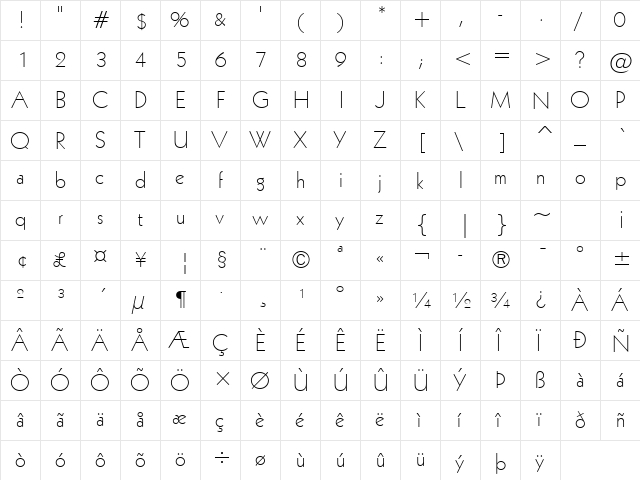
Geometr231 Lt BT Light Font Preview
Geometr231 Lt BT Light
Design Context for Geometr231 Lt BT Typeface
Geometr231 Lt BT is a composed and adaptable typeface that performs quietly and consistently across a wide range of design contexts. Its slender proportions lend an understated elegance to any composition.
Pro Tip: Use Geometr231 Lt BT in both headline and body roles to test its range before committing to a single application.